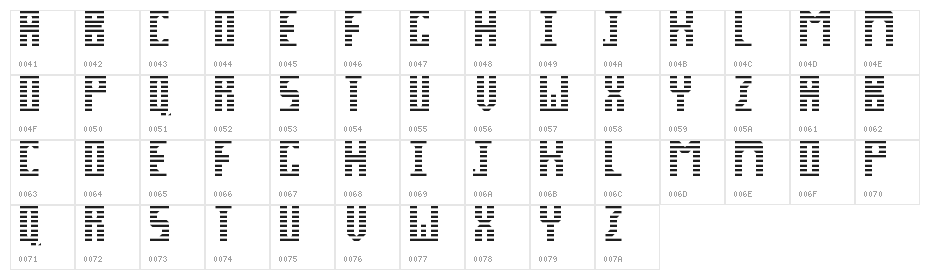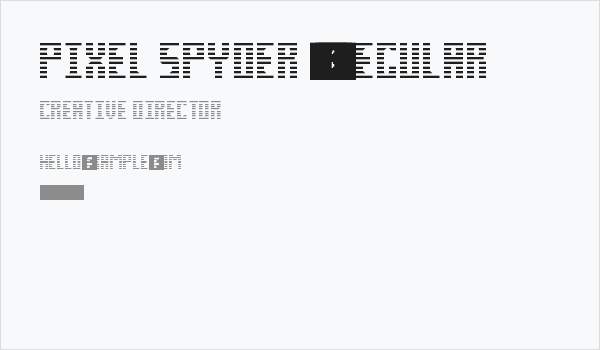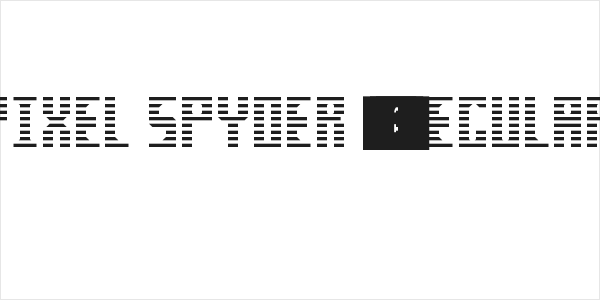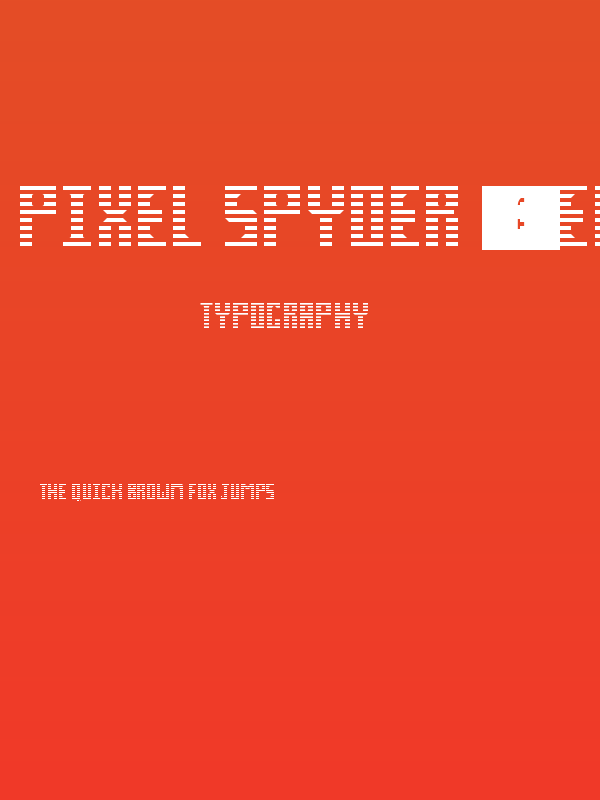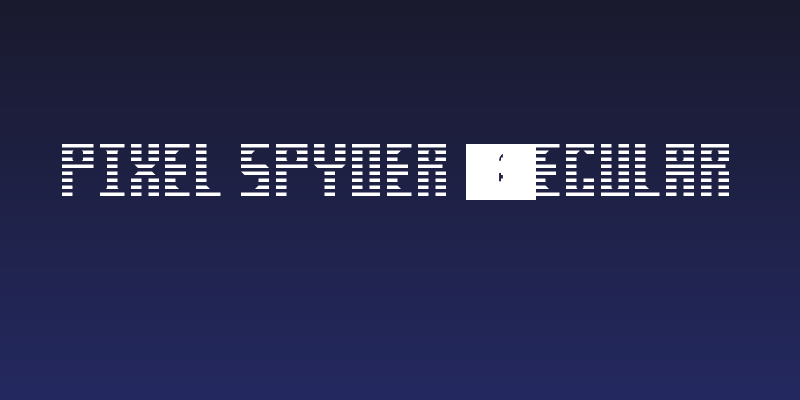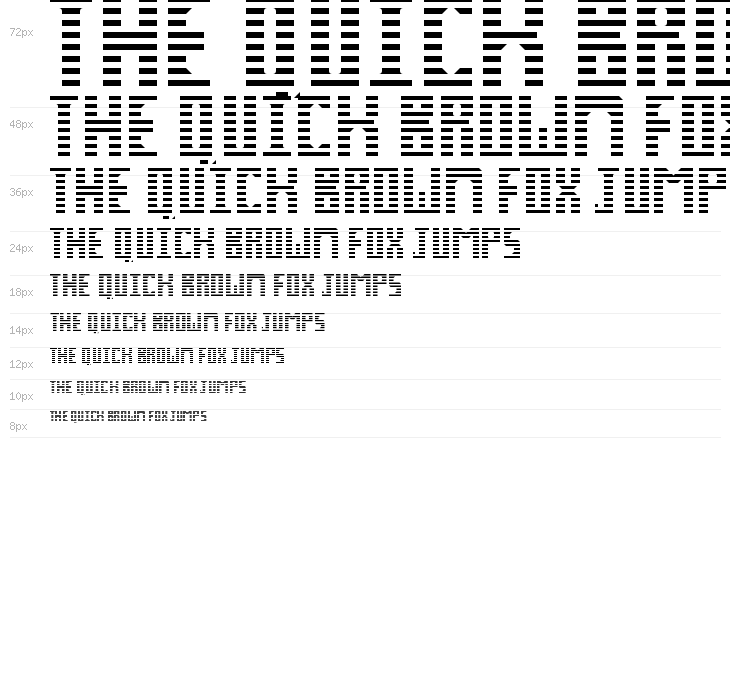
Pixel Spyder 2.0 Regular Font
Pixel Spyder 2.0 Regular Description
This font features a unique, pixelated design with a futuristic and digital aesthetic. Each character is composed of horizontal lines that create a segmented appearance, reminiscent of early computer graphics or digital displays. The uppercase and lowercase letters maintain a consistent style, with the uppercase being slightly more pronounced. The numbers and special characters follow the same design principles, ensuring uniformity across all glyphs. This font is highly stylized, making it ideal for projects that require a modern, tech-inspired look.
| Proposed Projects | Ideal for tech-themed designs, digital art projects, video game interfaces, and futuristic branding. |